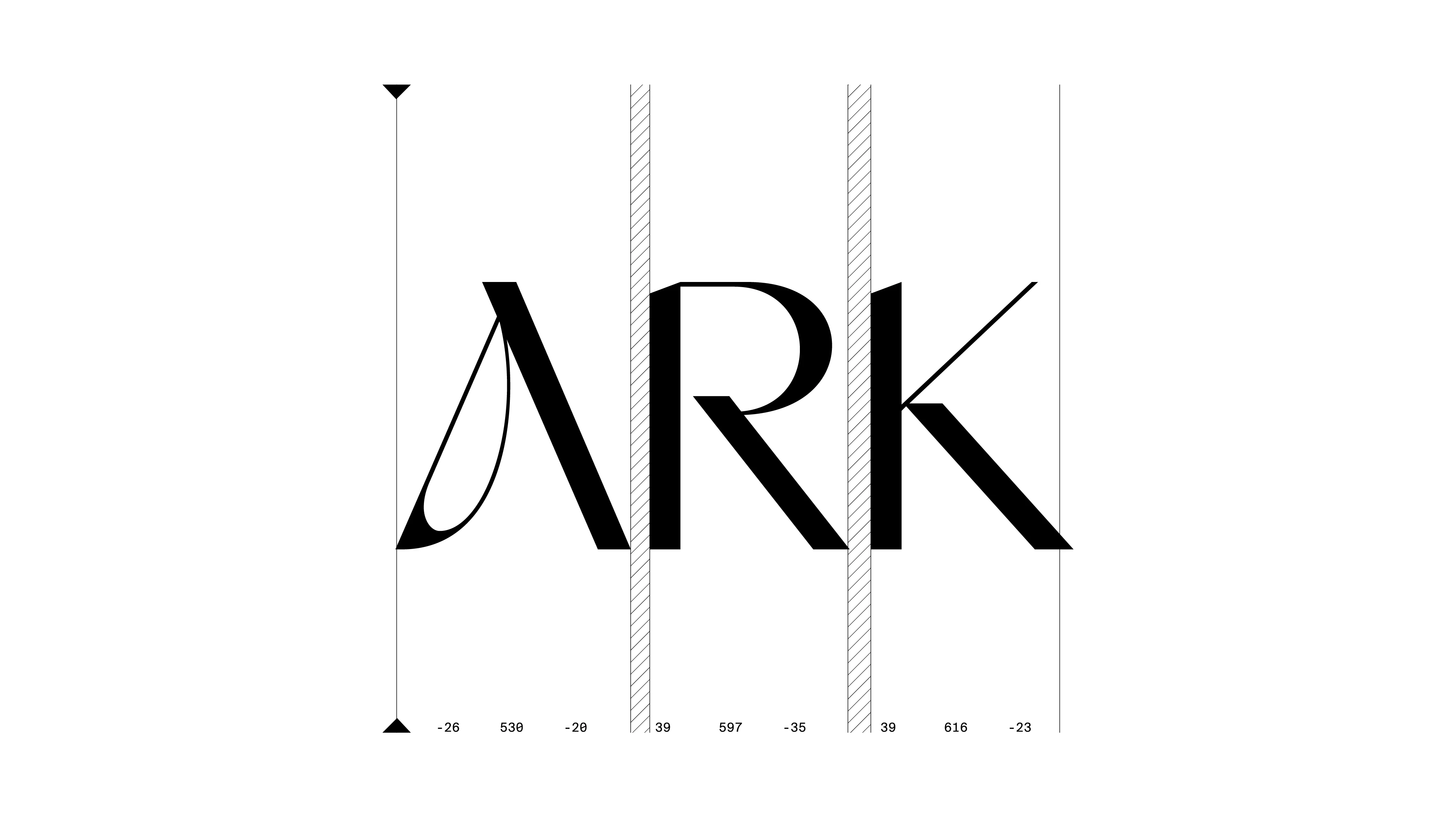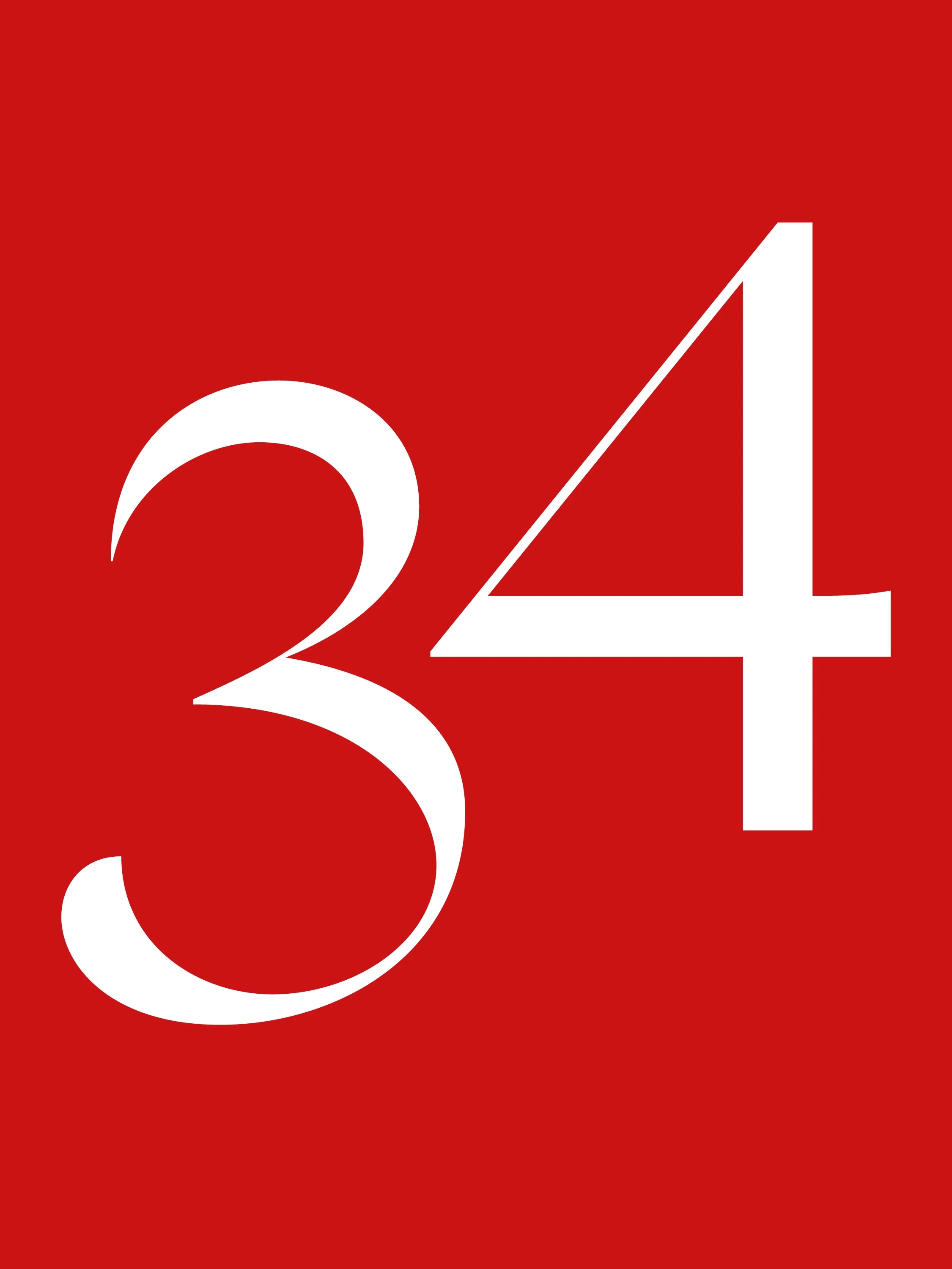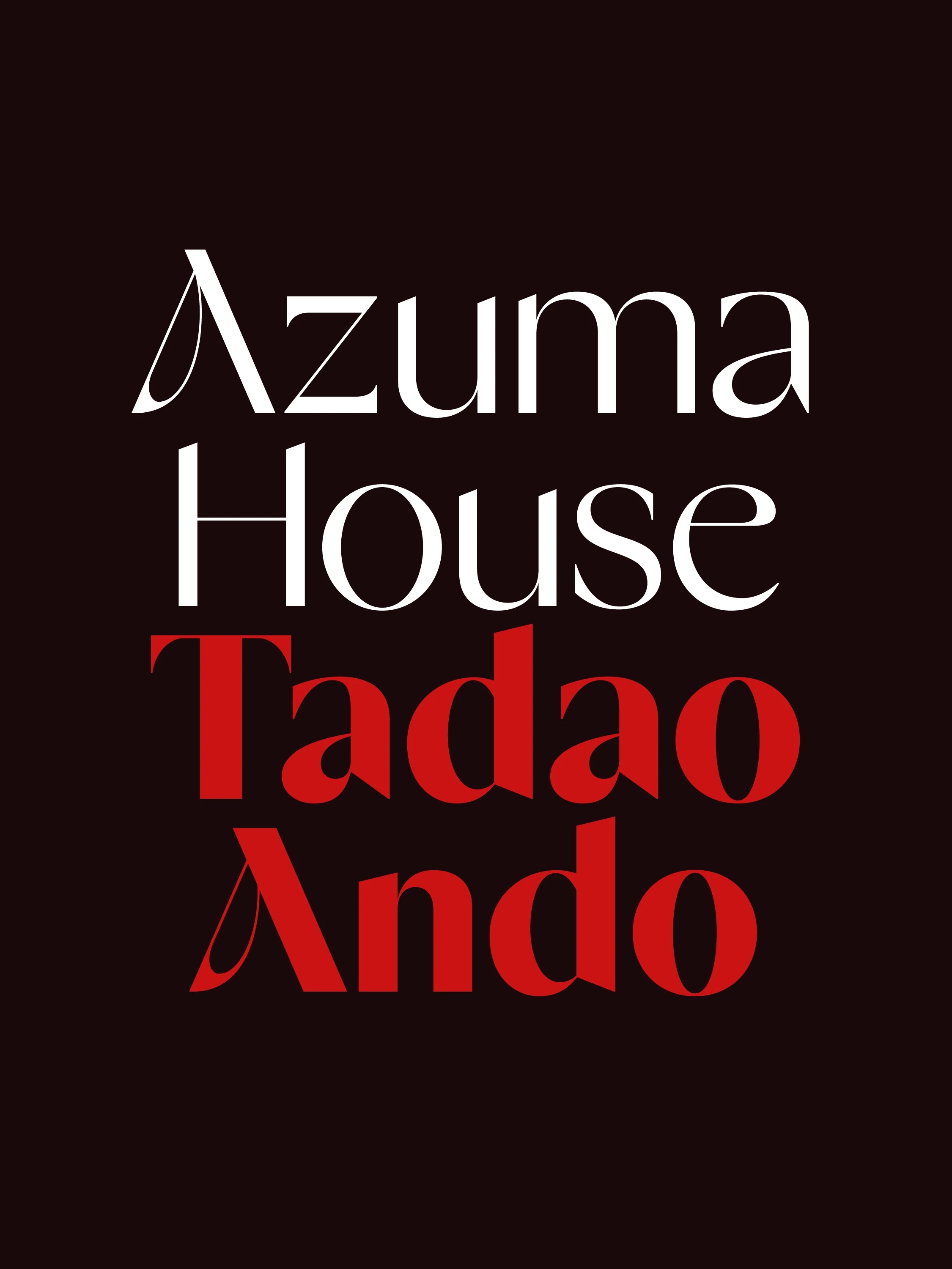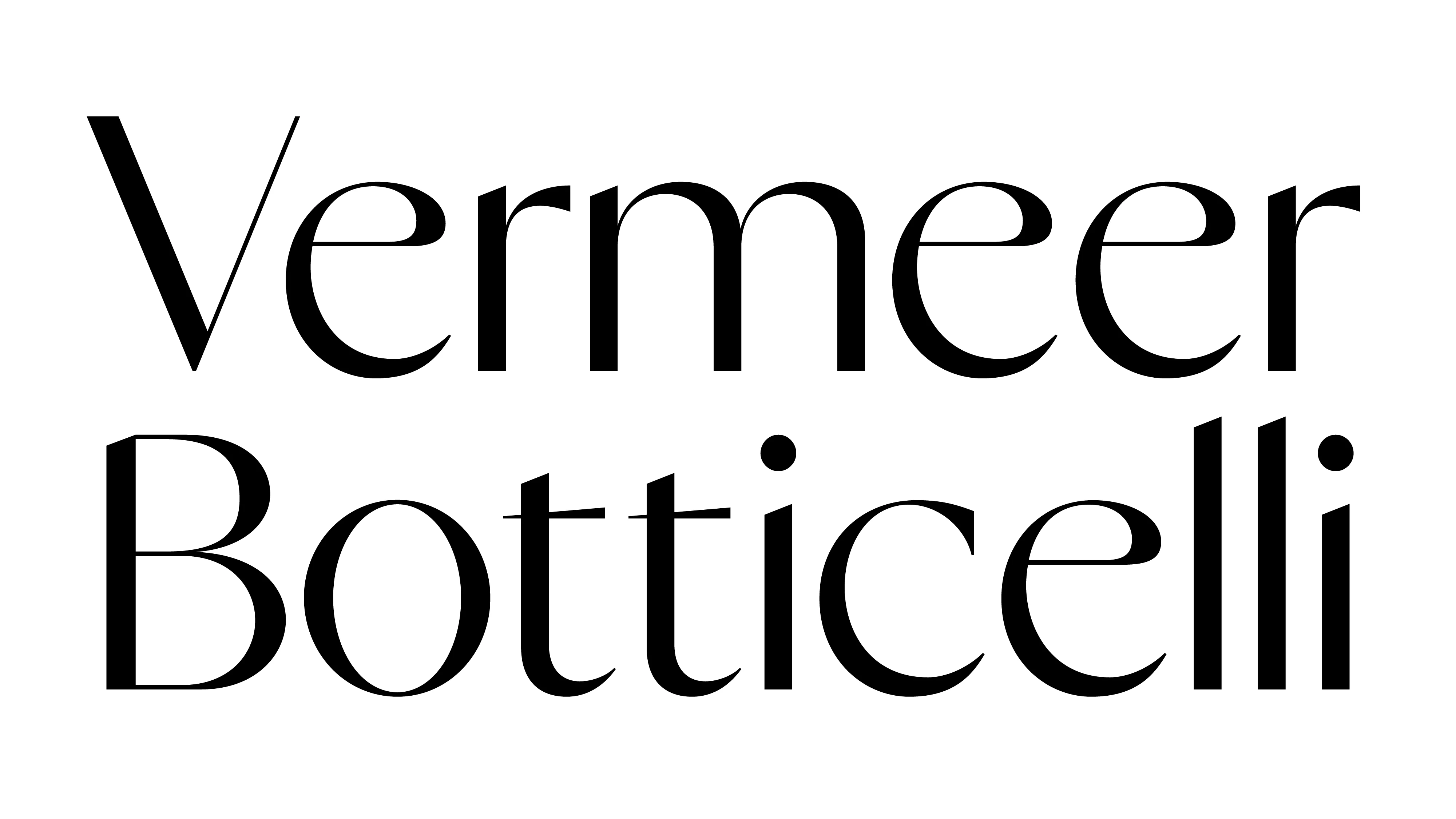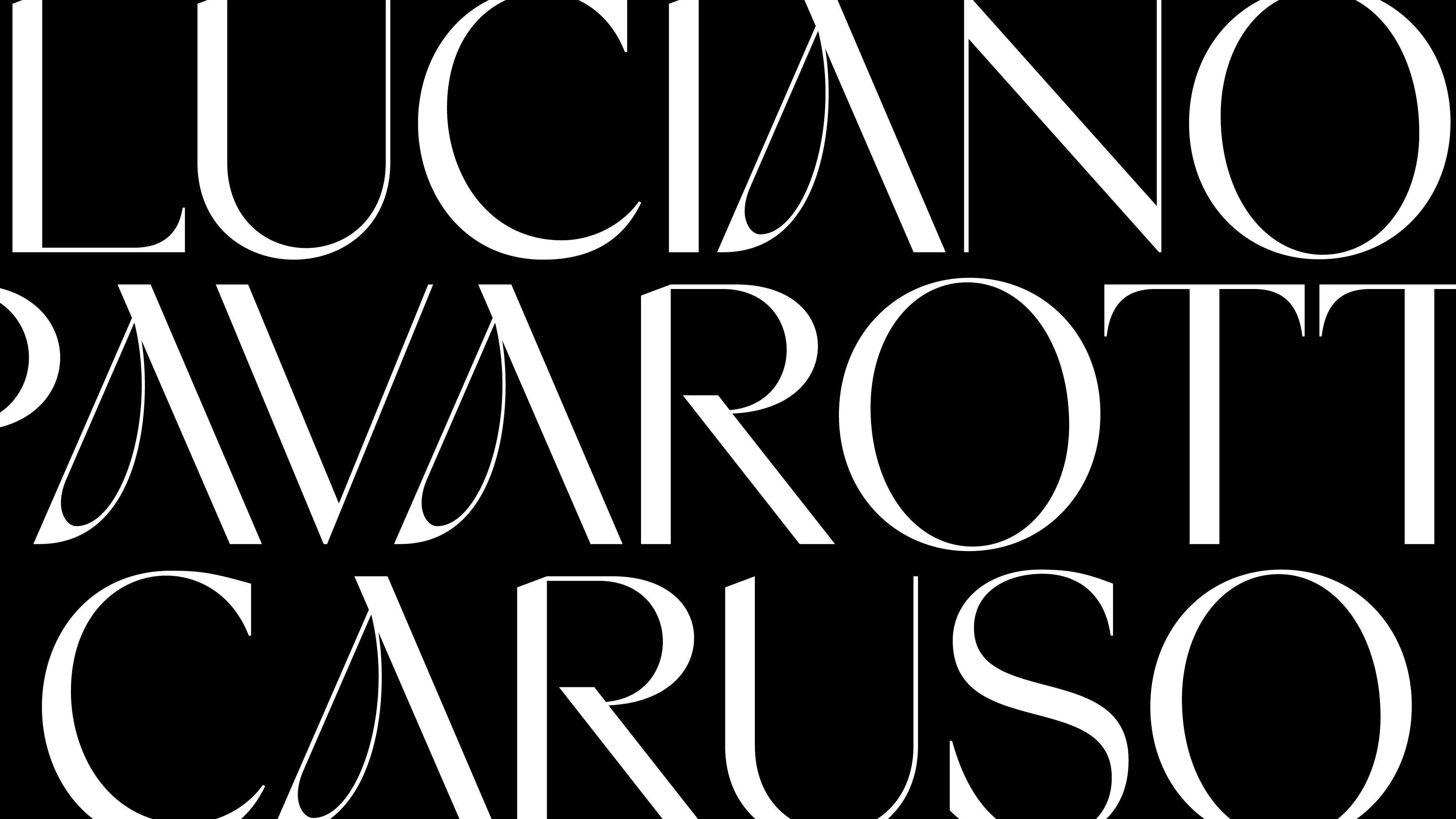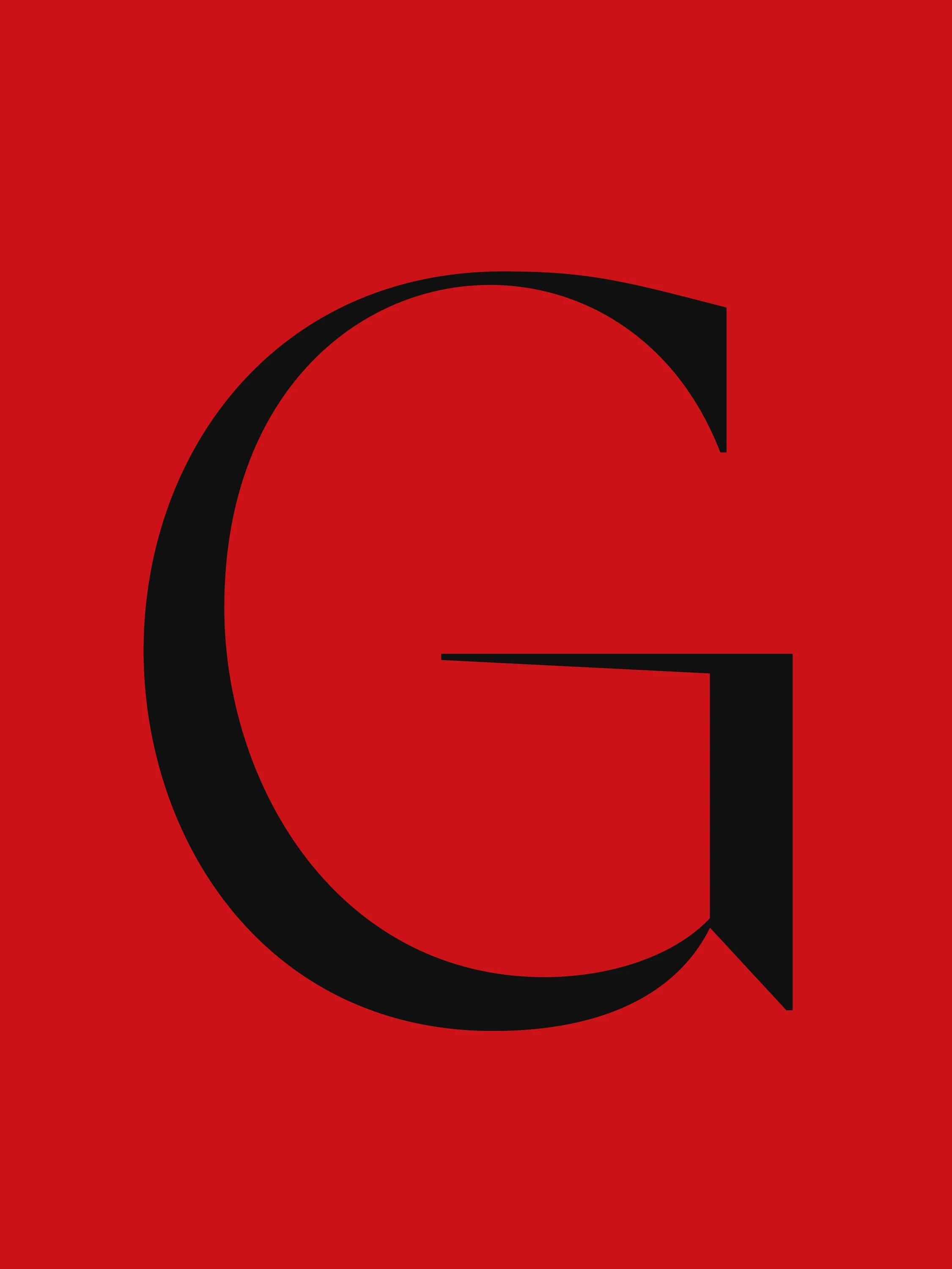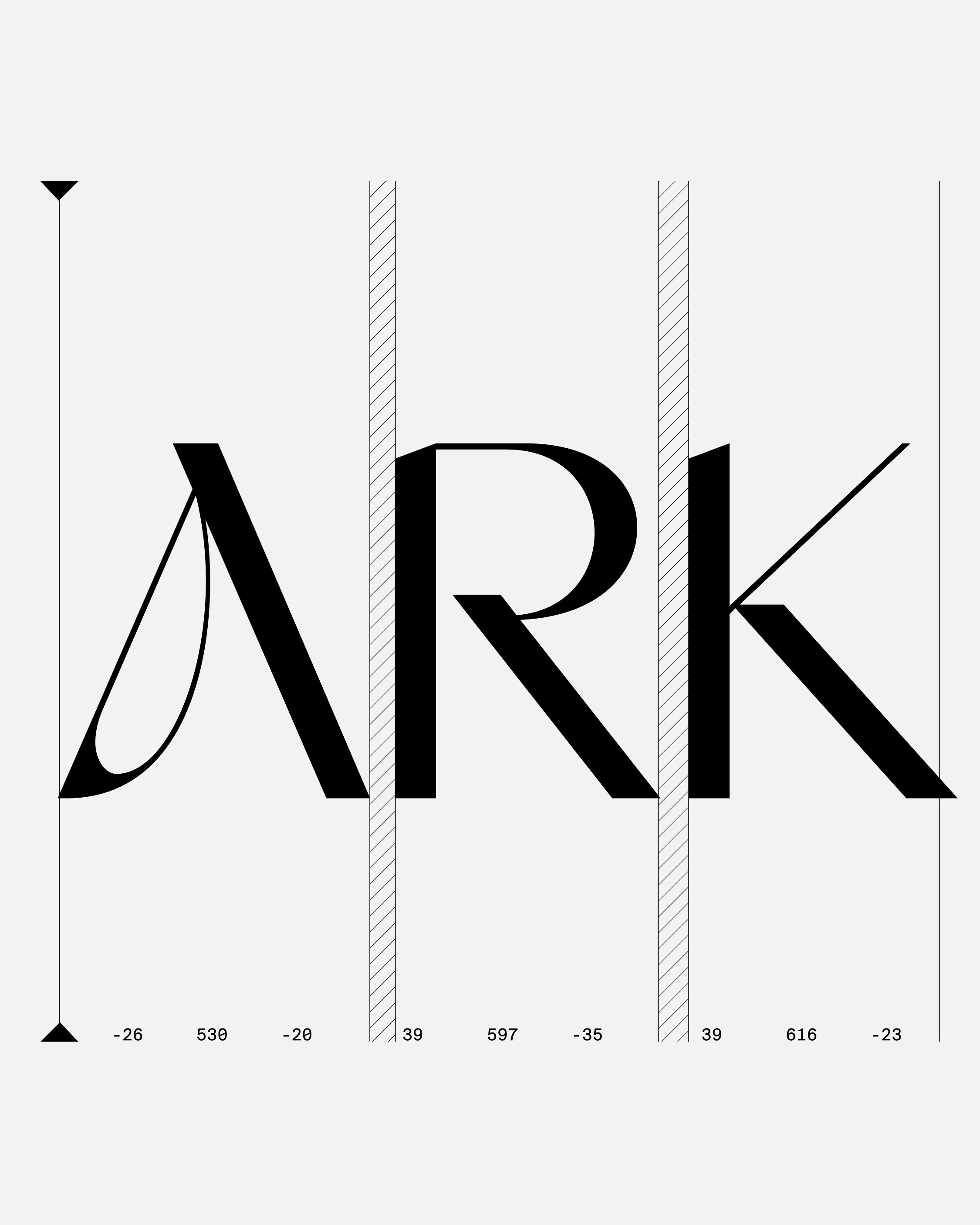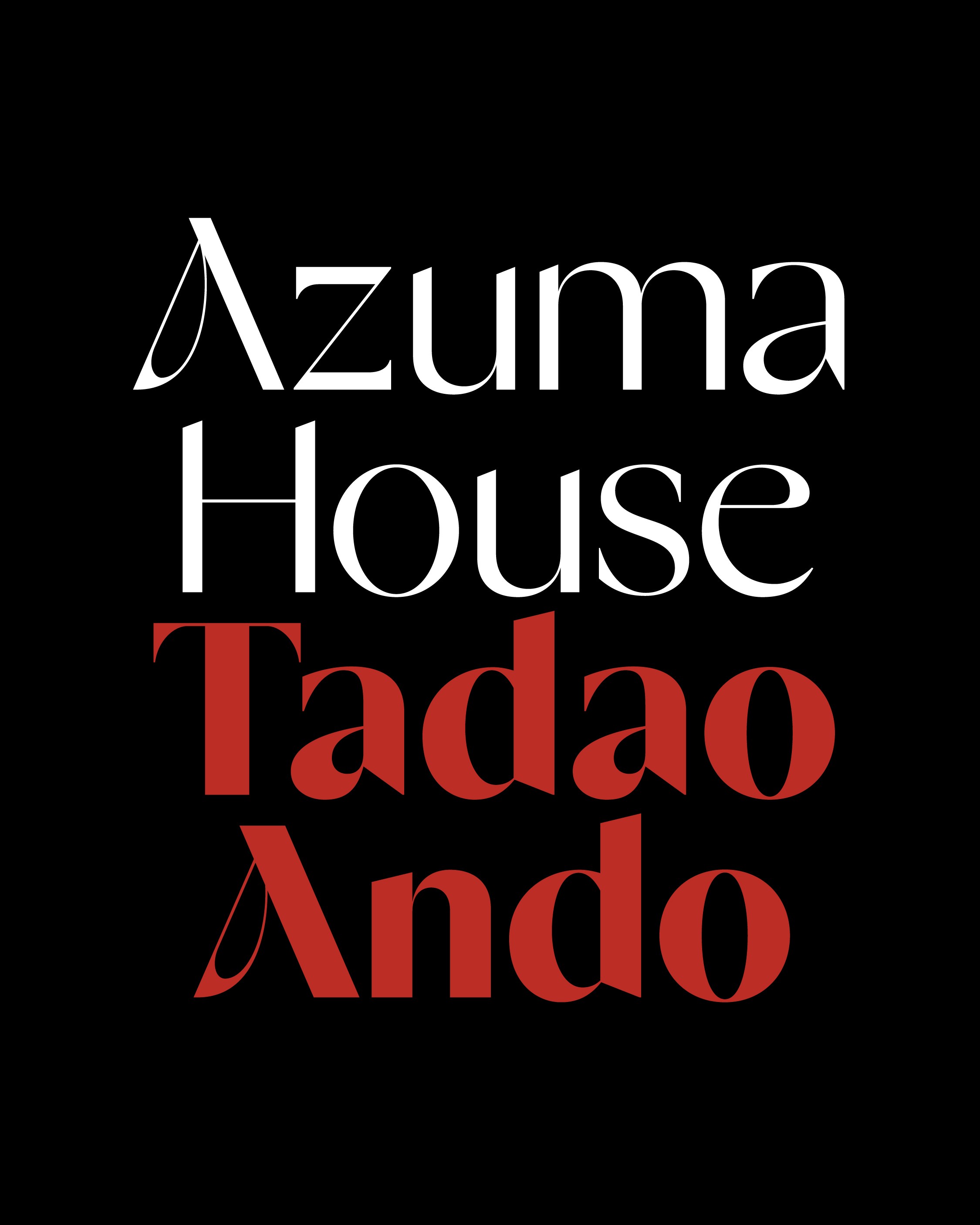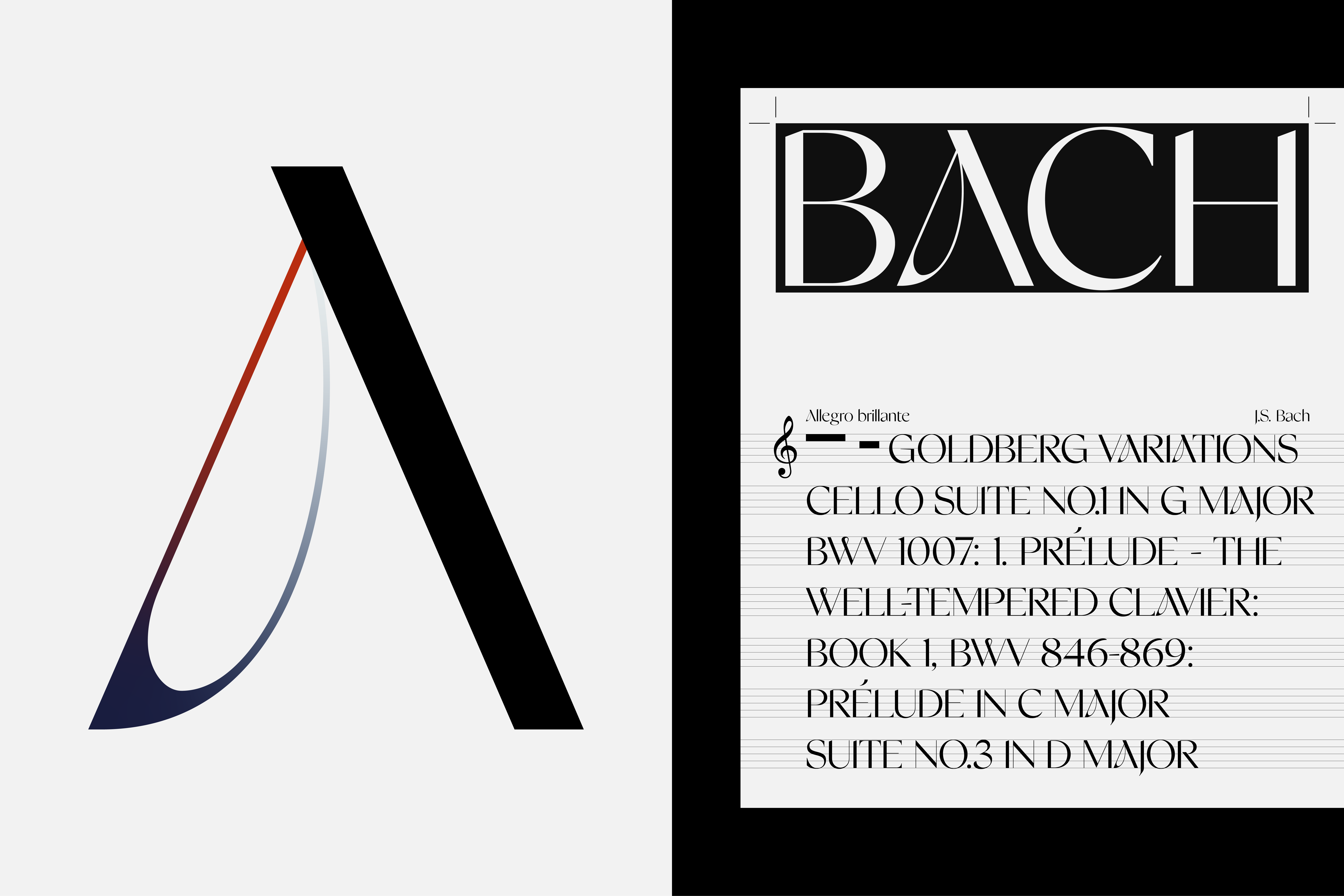
FH Alpha bridges the elegance of classical serif forms with the clarity of sans. Drawing on the humanist ideals of mid-century design, its flared terminals and subtle modulation recall Optima, while its sharpened silhouettes offer a refined stance for contemporary use. Designed for presence without ornament, FH Alpha speaks in quiet confidence.
Classification: Modern / Transitional Serif